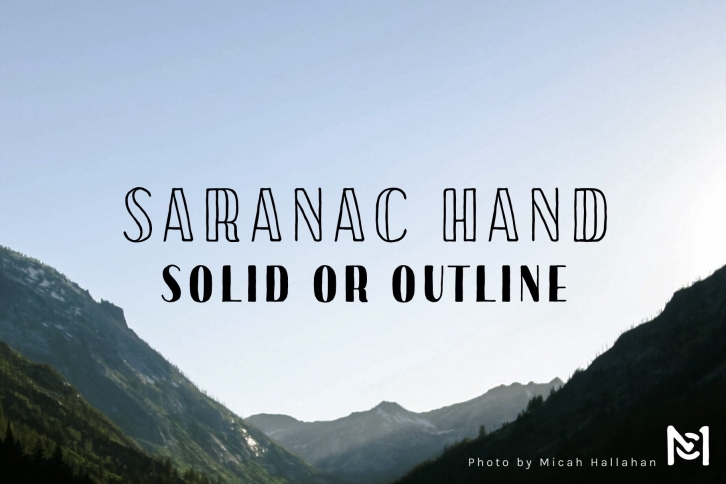
Saranac Hand is a hand-drawn font that emulates the culture of the Adirondacks. Its crafty nature gives it an artisan feel, while the strong verticals give it a solid disposition. It comes in two styles (solid and outline) and supports 75 languages. This font in suited for artisan, travel-related, and nature-based materials.
The whole premise of this font is to capture the culture of Saranac Lake, New York, a small village in the heart of the Adirondacks. I grew up visiting my grandparents who live there and was always envious of all of the surrounding wildlife, which I don’t find too much of in my hometown of Windsor, Connecticut.